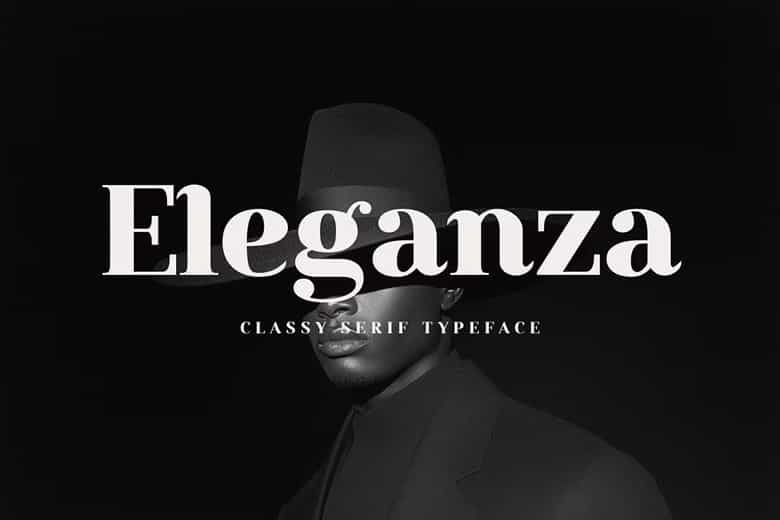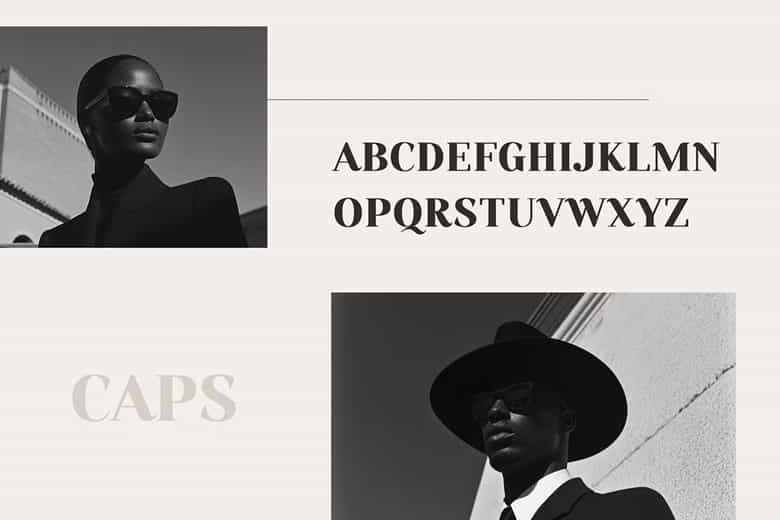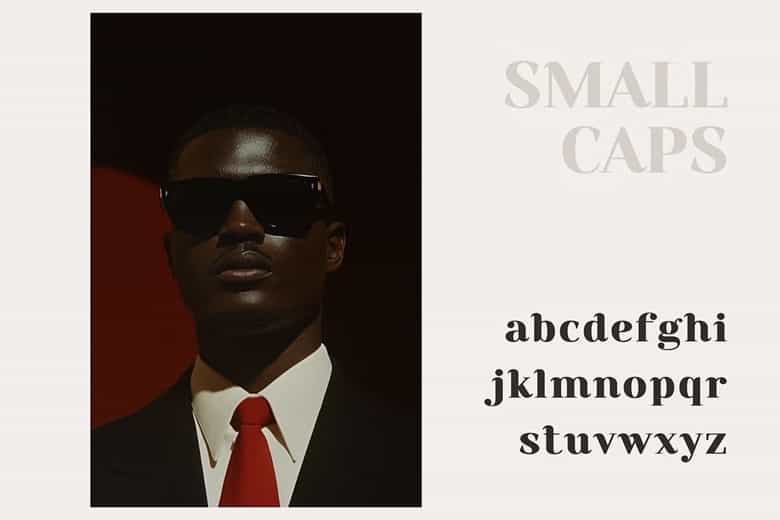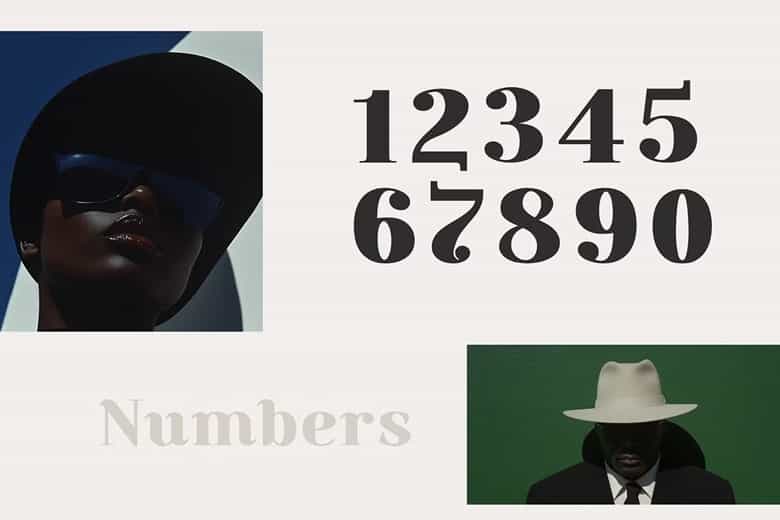
Meet Elegana is an exclusive serif typeface design for those who are always in search of elegance, luxury, and style. It is designed for those individuals that appreciate luxury and sophistication, giving elegance, creativity, and chic that could be used for luxury brand and merchandise branding, exclusive and exquisite fashion magazine and styling, luxury gift and gourmet food packaging.